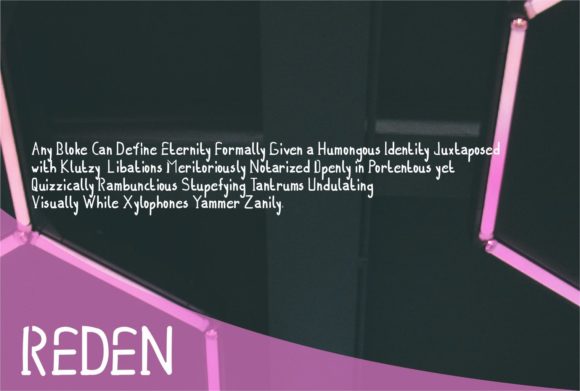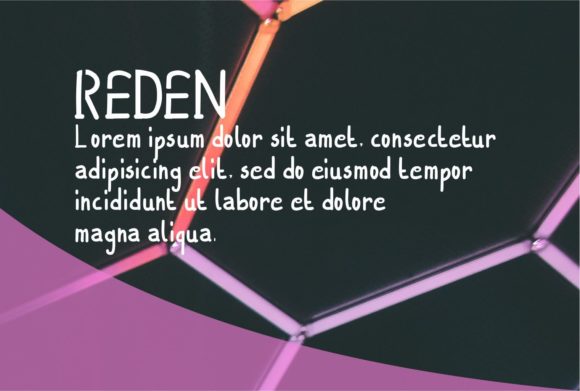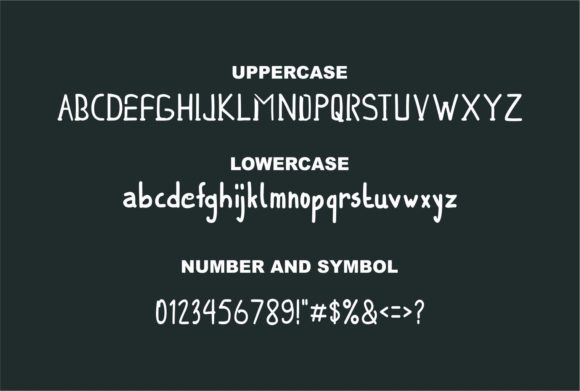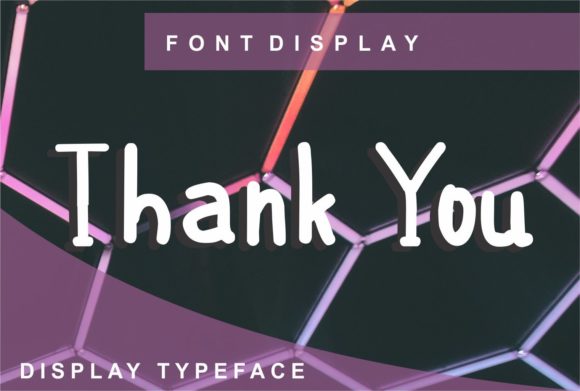
Introduction to Reden Font
Have you ever stared at a blank canvas, feeling the weight of a creative project on your shoulders? The cursor blinks, taunting you to begin. But then, the spark of inspiration strikes, and the design begins to take shape. For designers, moments like these are what drive us forward, and the right tools can make all the difference.
Enter the Reden Font, a simple yet sharp display font that’s about to become your new best friend. With its high quality design and transparent background, this versatile font is perfect for adding a touch of sophistication to your creative projects.
Key Features of Reden Font
- High-quality, unique font design for creative projects, ideal for graphic designers and artists.
- Features a transparent background, allowing for seamless integration into any design project.
- Designed to be highly legible, even at small font sizes, making it perfect for use in a variety of creative contexts.
Honest Review: Reden Font
As a designer, I’m always on the lookout for high-quality design resources that can elevate my creative projects. The Reden Font caught my attention, and I decided to give it a try. Here’s my honest review.
- High-quality typography: The Reden Font boasts beautiful, clean lines and a unique character that makes it perfect for creative projects.
- Transparent background: The font’s transparent background allows for seamless integration with other design elements, giving me more flexibility in my designs.
- Limited character set: The Reden Font has a limited character set, which might be a concern for designers who need a wide range of characters for their projects.
- Not suitable for complex text: Due to its unique design, the Reden Font might not be the best choice for complex text or large blocks of text.
Overall, I’m impressed with the Reden Font’s quality and versatility. While it has some limitations, it’s a great resource for designers who want to add a touch of elegance to their creative projects. I’d definitely recommend it as a design resource, especially for free download.
Getting the Most Out of Reden Font
For the best results, use the Reden Font on a transparent background. This will allow the font to stand out and add a touch of elegance to your design. Experiment with different font sizes and styles to find the perfect look for your project.
The Reden Font is ideal for creative projects, such as logos, business cards, and brochures. It’s also great for presentations and documents requiring a professional, high-quality look. With its transparent background and unique design, the Reden Font is a valuable design resource for any project.
Yes, Reden Font supports transparent backgrounds, making it perfect for designers who want to create high-quality designs with a clear and transparent look. This feature allows for greater flexibility and creativity in design projects.